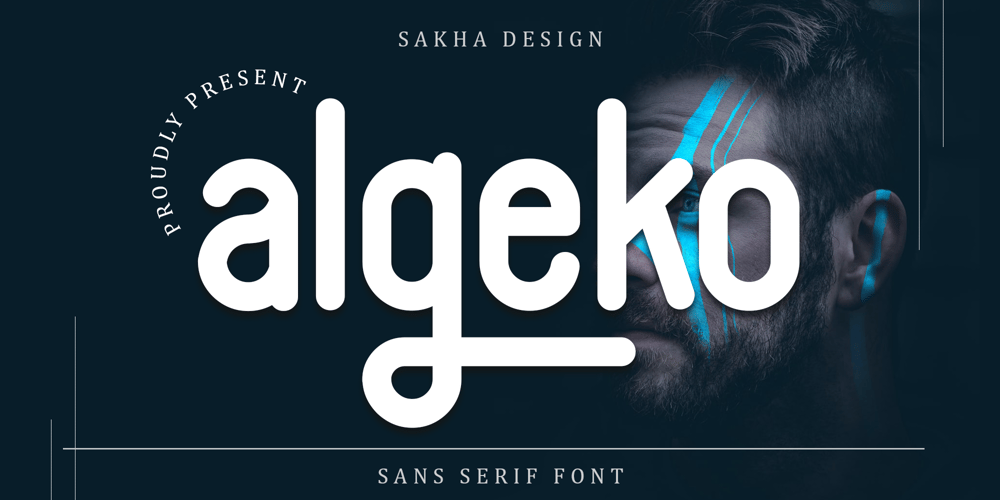
Algeko Font Family was designed by Alif Ryan Zulfikar and published by Sakha Design. Algeko contains 2 styles and family package options. Algeko is a simple, adaptable and vintage syled sans serif font. Add it confidently to your favorite creations and let yourself be amazed by the outcome generated.